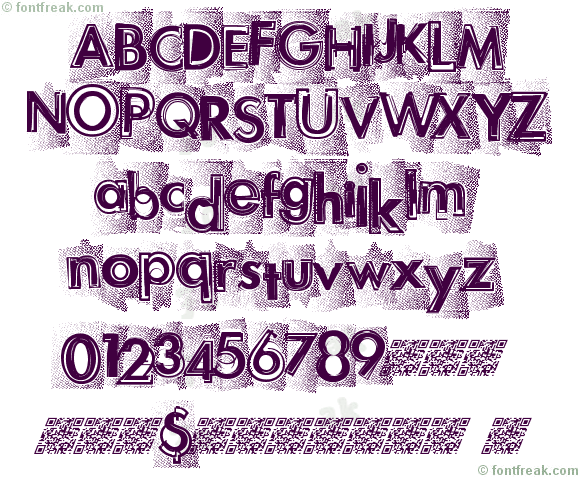
NewHighs
About NewHighs
The NewHighs font by Xerographer Fonts is a distinctive display typeface that seamlessly blends modern aesthetics with a playful flair. This font is characterized by its bold, expressive letterforms that showcase a unique combination of thick and thin strokes, resulting in a striking contrast that catches the eye. The letters are designed with generous spacing, enhancing readability and making it an ideal choice for various creative projects. The decorative elements in NewHighs—such as its rounded edges and whimsical curves—add a touch of personality, making it perfect for designs that seek to convey fun and creativity.
Best suited for vibrant use cases, the NewHighs font excels in projects such as wedding invitations, where its charm can evoke emotion and celebration. It also stands out in movie posters, capturing attention with its bold presence, and is a fantastic choice for restaurant menus, where it can add a unique twist to the dining experience. Additionally, small business owners can leverage NewHighs in branding materials to create a memorable identity that resonates with their audience.
This font appeals to a diverse target audience, including graphic designers looking for eye-catching typography, content creators aiming to add a playful touch to their projects, and marketers who want to make a lasting impression with their promotional materials.